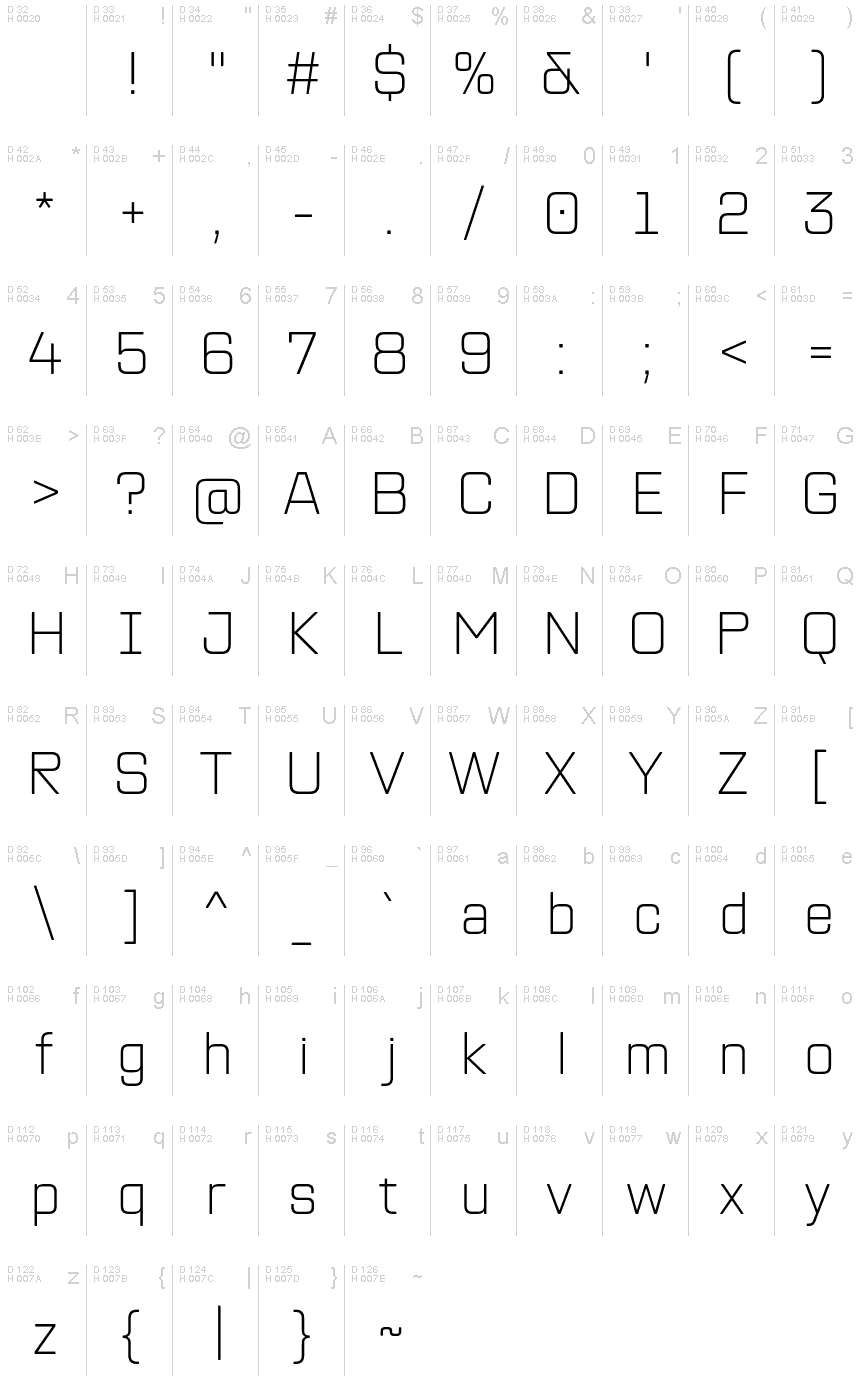
TT Lakes Neue Trial ExtraLight
The TT Lakes Neue ExtraLight font is a stunning addition to the sans-serif family. With its extra-light weight and semi-expanded width, this font is the epitome of elegance and sophistication. Created by TypeType Foundry, this font boasts crisp lines and rounded edges that give it a modern yet timeless appeal. Its versatility makes it suitable for a wide range of projects, from minimalist branding to editorial design. Use it for websites, logos, business cards, brochures, or any project that requires a touch of refinement. Elevate your designs with TT Lakes Neue ExtraLight and make them truly unforgettable.